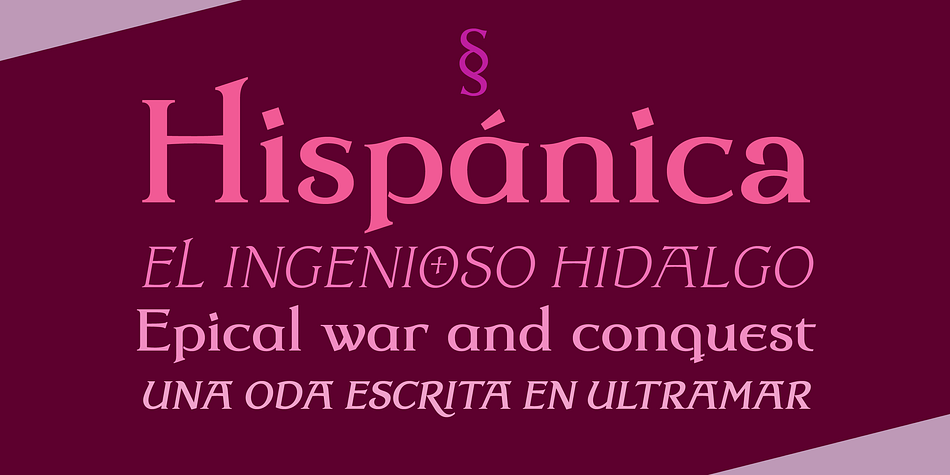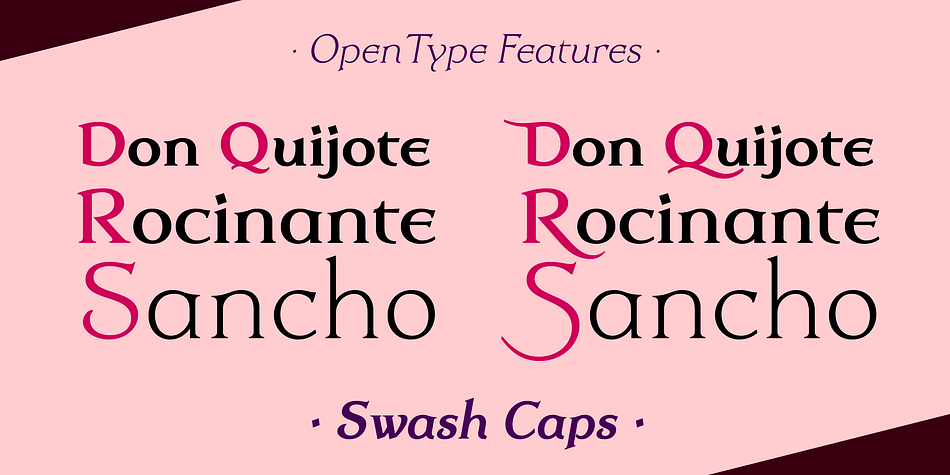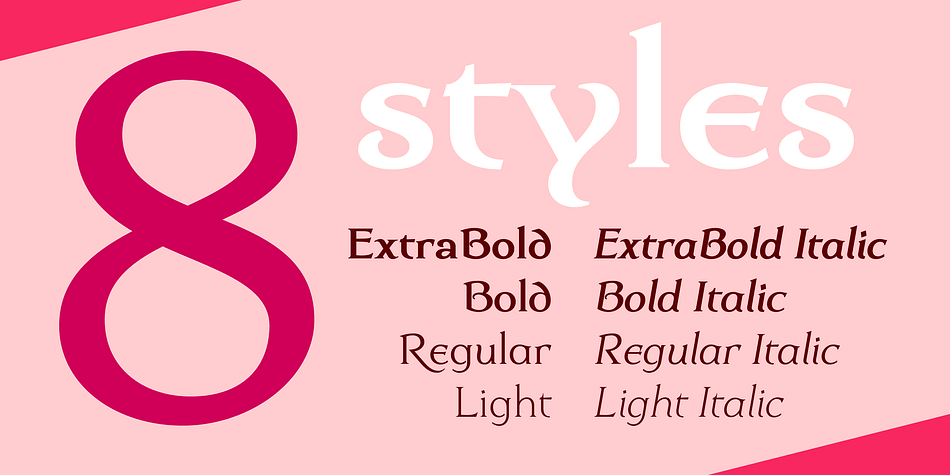
Dulcinea Serif
Designed by John Beltrán, Dulcinea Serif is a serif font family. This typeface has eight styles and was published by JVB Fonts.
The aim of this typeface is to merge two historical moments in the form and style of writing, on the one hand calligraphy uncial, and on the other Roman serif was established as a universal standard for type fonts continuous text at the time. Is intended in terms of their functionality as a font for titles. The family includes some extended range glyphs as several Caps swashes and stylish alternatives for upper and lower case, standard and discretional ligatures, old numerals and other OpenType features.